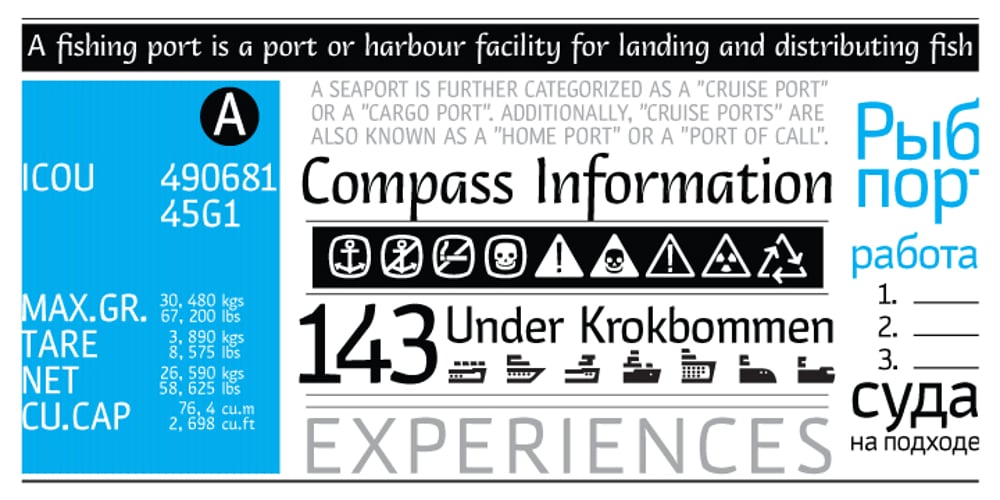
ALS Gross Kunst Font Family was designed by Kirill Sirotin and published by Art. Lebedev Studio. ALS Gross Kunst contains 3 styles and family package options. Gross Kunst is a humanist sans-serif with an open aperture, sharp outlines, and eye-catching details that make this full of character typeface very recognizable. The type family has three fonts based on wide pen strokes. Depending on its purpose the styles differ in expressiveness and the level of ornamentation. Regular style—low-contrast and neutral—is the most natural choice for body-text. The display face is more dynamic and gets higher contrast. It’s very legible from a distance and would do its best on navigational and warning signage, plates, and such. Eloquent straight italics will adorn titles, announcements, and pages with ads. This typeface was acknowledged at the international type design competition Modern Cyrillic ’99.